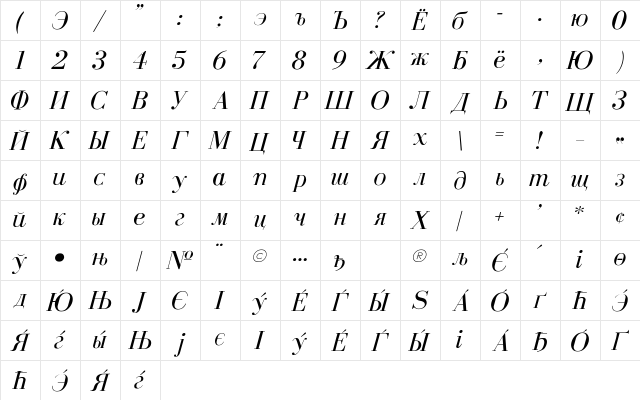
Cyrillic-Normal-Italic Regular
Design Context for Cyrillic-Normal-Italic
Cyrillic-Normal-Italic is a composed and adaptable typeface that performs quietly and consistently across a wide range of design contexts. The slanted form adds forward momentum and visual energy.
Pro Tip: Use Cyrillic-Normal-Italic for emphasis, pull quotes, and subheadings where its slanted energy can add rhythm to the layout.